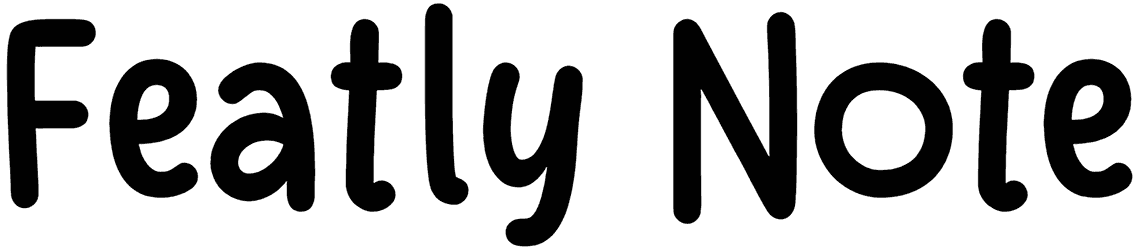
Featly Note Font
Featly Note, a cute comic font that can induce a sweet artistic result, would give your kid’s invention a lovable and friendly air. Stickers, posters, toy packaging, and stationery are all fine areas to use this bullet journal font, supporting all the needed characters.